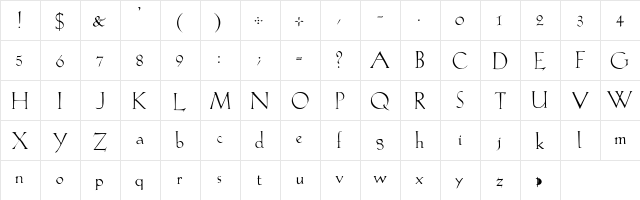
Lilith-Light Regular
Design Context for Lilith-Light Typeface
Lilith-Light offers clean, dependable letterforms without strong stylistic allegiance, making it a practical choice for designers who need flexibility. Its slender proportions lend an understated elegance to any composition.